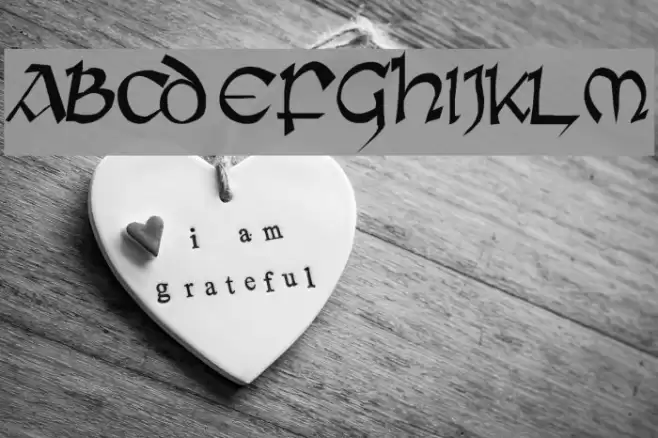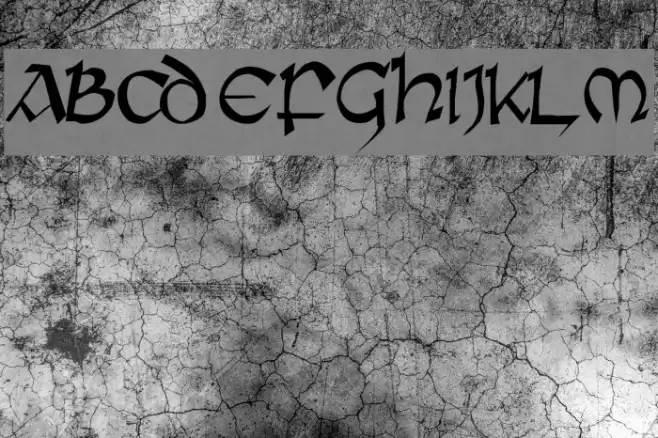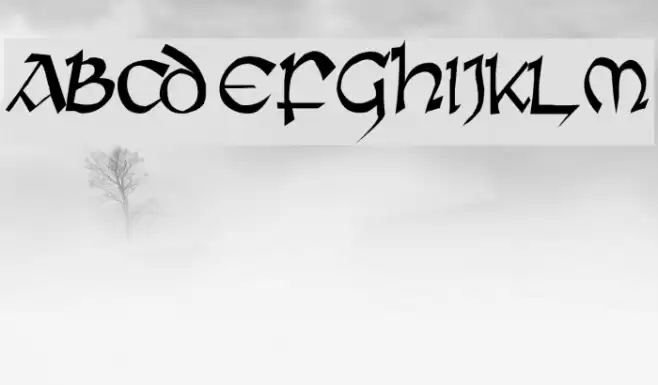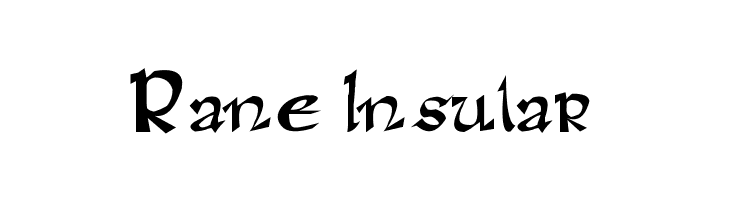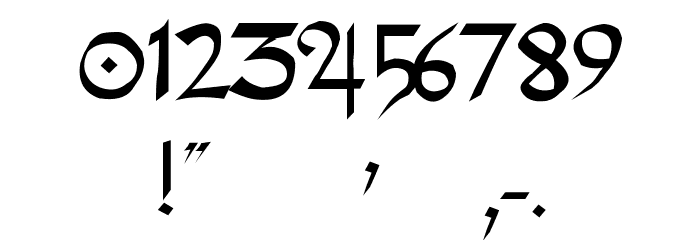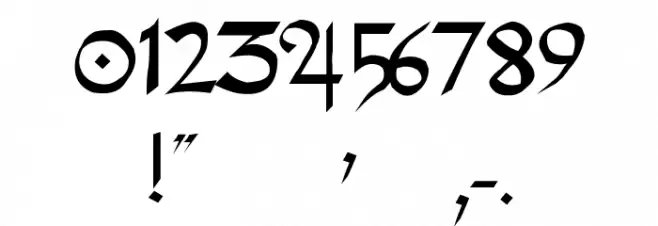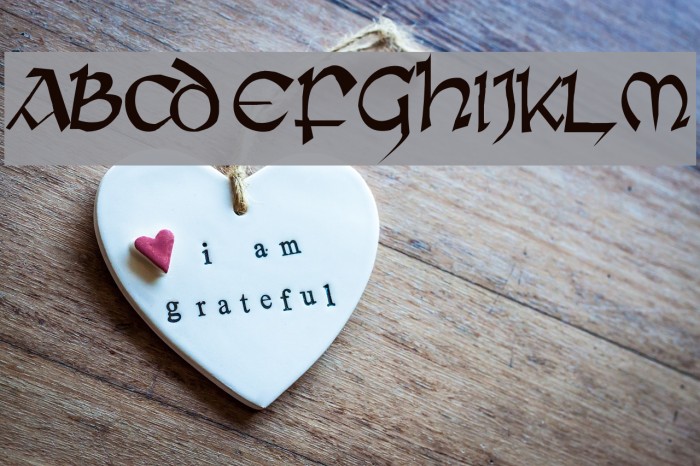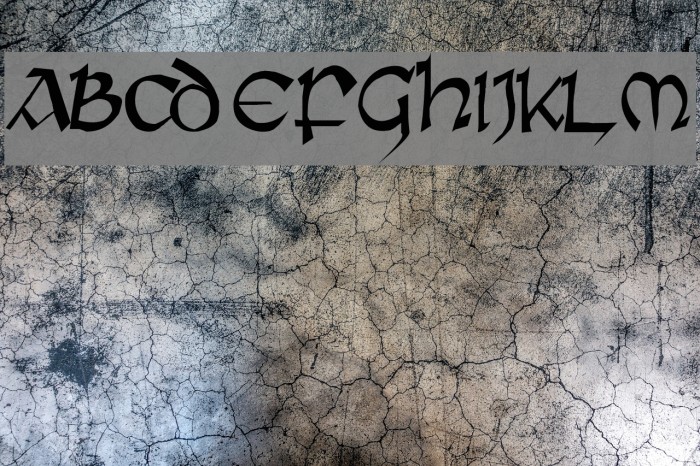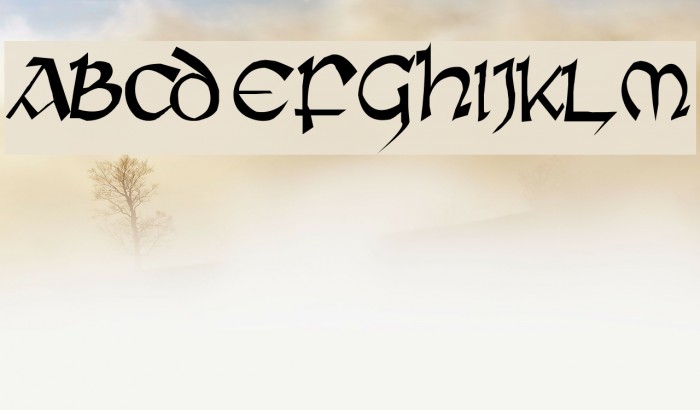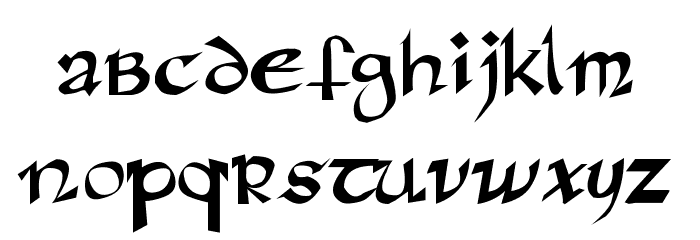
Rane Insular Font
Rane Insular Description
This font features a unique blend of sharp, angular strokes and smooth curves, creating a dynamic and striking appearance. The uppercase letters exhibit a bold and commanding presence, with distinctive pointed serifs and diagonal cuts that add a sense of movement. The lowercase characters maintain a consistent style, with slightly more rounded forms that balance the overall design. Numbers and special characters follow the same aesthetic, ensuring a cohesive look across all text. The font's dramatic flair makes it ideal for projects that require a touch of elegance and boldness.
A dynamic font with sharp angles and smooth curves, perfect for striking designs from Gothic fonts.